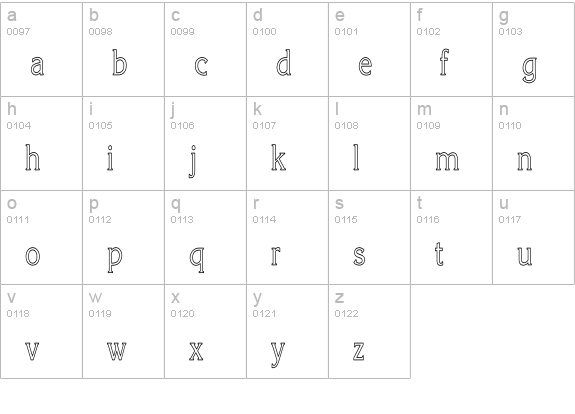
The Gloria-LightHC font is a stunning typeface that exudes elegance and sophistication. With its delicate lines and graceful curves, this font is perfect for adding a touch of class to any design project. The light weight of the font gives it an airy and ethereal quality, making it ideal for use in fashion, beauty, and lifestyle branding. What sets Gloria-LightHC apart is that it is not only visually appealing but also free to download. That's right, you can access this beautiful font at no cost on FontsMarket.com. Whether you're a designer looking to elevate your creations or a content creator in need of a stylish font for your social media posts, Gloria-LightHC is sure to impress. Don't miss out on this fantastic opportunity to enhance your designs with this exquisite font. Download it today and let your creativity shine!